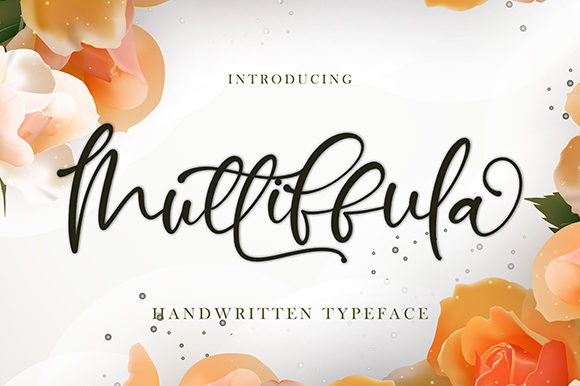
Introducing Muttiffula Font, the exquisite script font that will ignite your creativity and captivate your audience. Born from the minds of Pineungtype and Missinklab, Muttiffula is an extraordinary handwritten font that dances across the page with its playful and free-spirited nature.
Prepare to be enchanted by its charming imperfections and the subtle nuances that make each letter a work of art. Muttiffula transcends the ordinary, inviting you to embrace the beauty of the handmade and add a touch of authenticity to your digital creations. This captivating font will weave its magic into your designs, evoking a sense of intimacy and warmth.
Imagine your words taking on a life of their own, adorned with the elegant curves and whimsical flourishes of Muttiffula. It's perfect for adding a personal touch to invitations, greeting cards, social media posts, and any other project that calls for a hint of playfulness. Let its unique character shine through, captivating your audience and leaving a lasting impression.
With Muttiffula, you have the power to transform the ordinary into the extraordinary. Whether you're a seasoned designer or just starting your creative journey, this enchanting font will elevate your projects to new heights. Embrace the beauty of imperfection and let Muttiffula guide you towards creating designs that resonate with authenticity and charm.